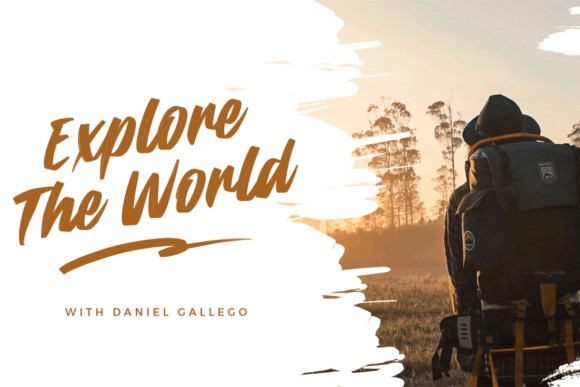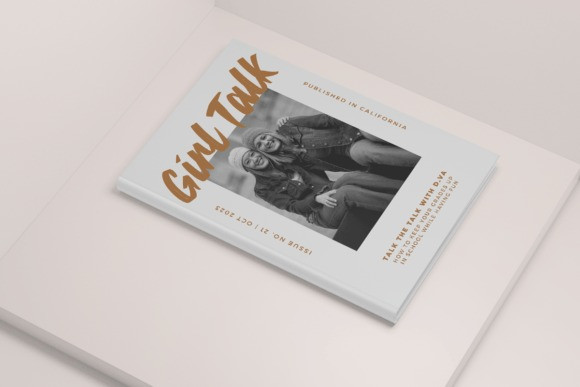
Take Back Font
Take back is the elegant and flowing handwritten font that combines the beautiful strokes of a brush pen with modern typographic influences. So, it’s perfect for creating all kinds of stunning designs and impressive letterforms.